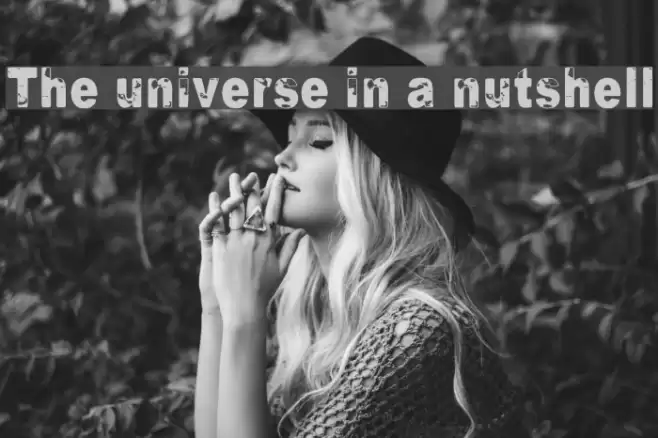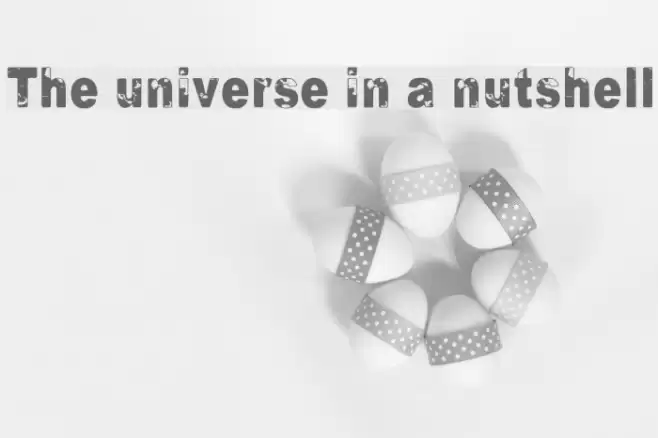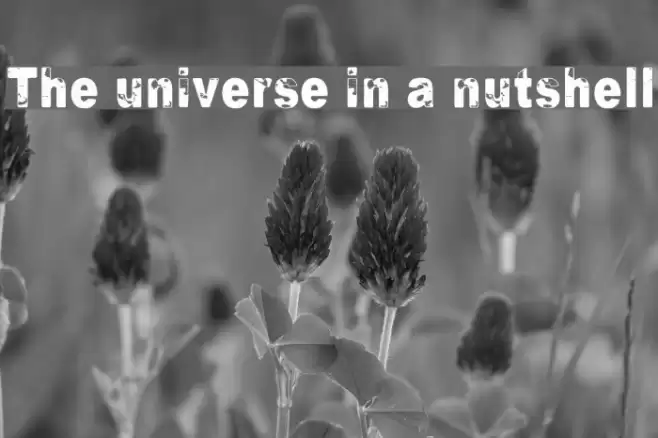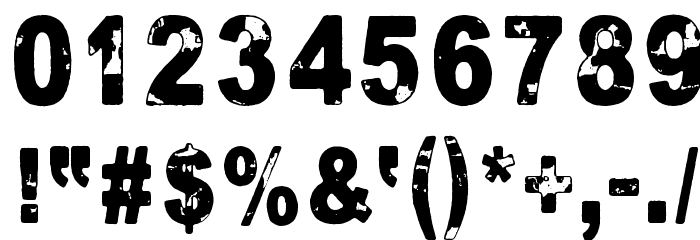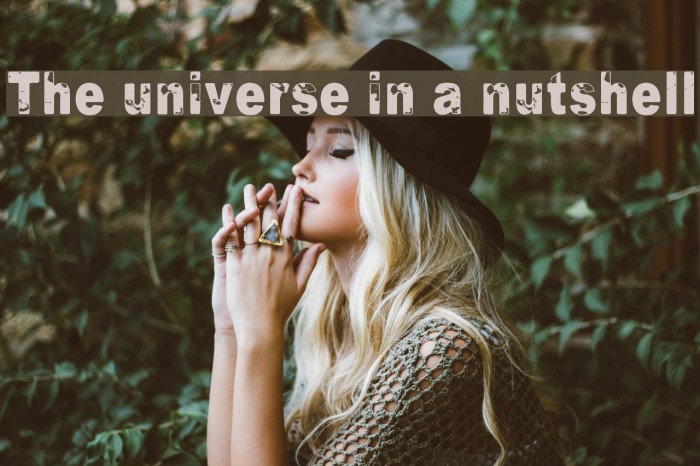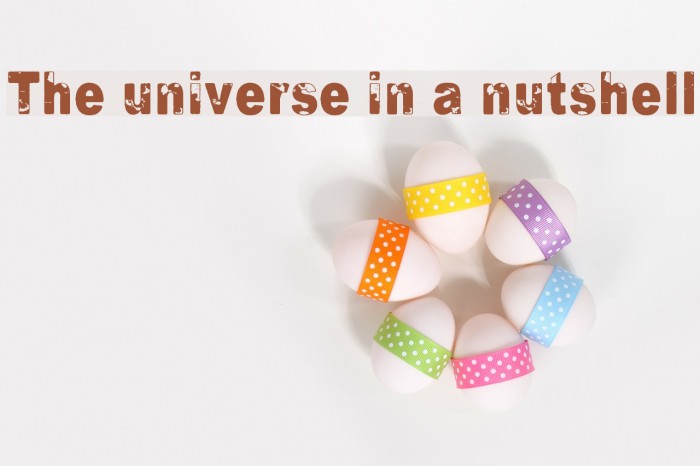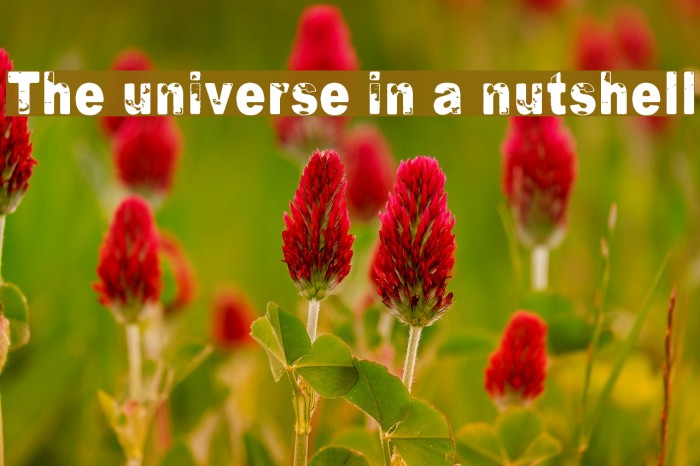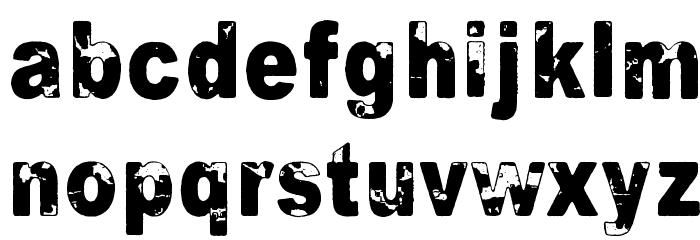
The universe in a nutshell Font
The universe in a nutshell Description
This font features a bold and distressed style, characterized by its rough, weathered appearance. The letters are thick and heavy, with a textured look that suggests wear and tear, giving it a gritty, urban feel. The uppercase and lowercase letters maintain a consistent weight, while the numbers and special characters share the same rugged aesthetic. This font's unique, grunge-inspired design makes it stand out, ideal for projects that require a bold statement. Its distressed texture adds depth and character, making it suitable for creative and artistic applications.
A bold, distressed font with a gritty, urban aesthetic from Distorted Eroded fonts.
- Proposed Projects: Ideal for posters, album covers, streetwear branding, and any project needing a bold, edgy look.
- Overall Style: Grunge, Urban, Edgy